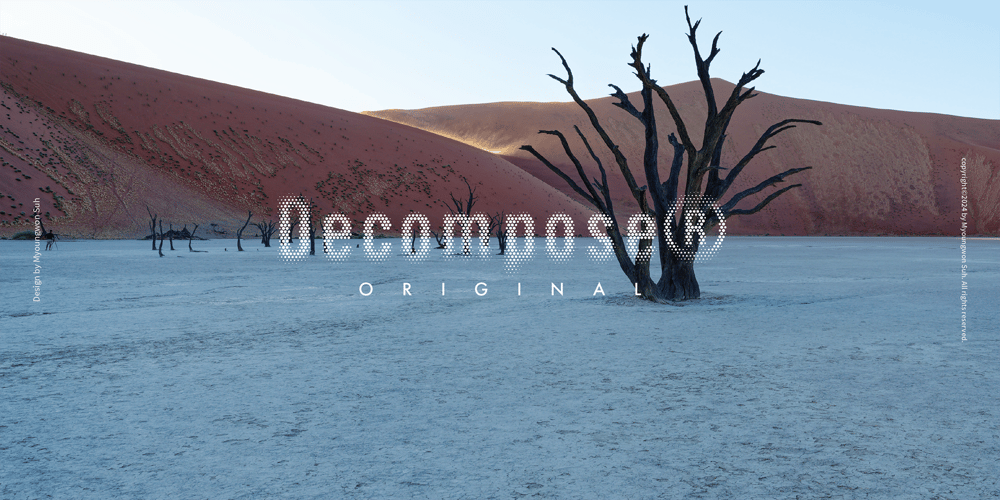
Decompose Font Family was designed by Myoungwon Suh and published by Designsuh. Decompose contains 1 styles and family package options. There are times when we have to look at our lives from afar. You should look at the forest rather than the trees. A decompose typeface shows the letters breaking apart and disappearing. Of course you can read what the letters are. This typeface is more visible from afar than up close. Please use a beautiful decompose font.